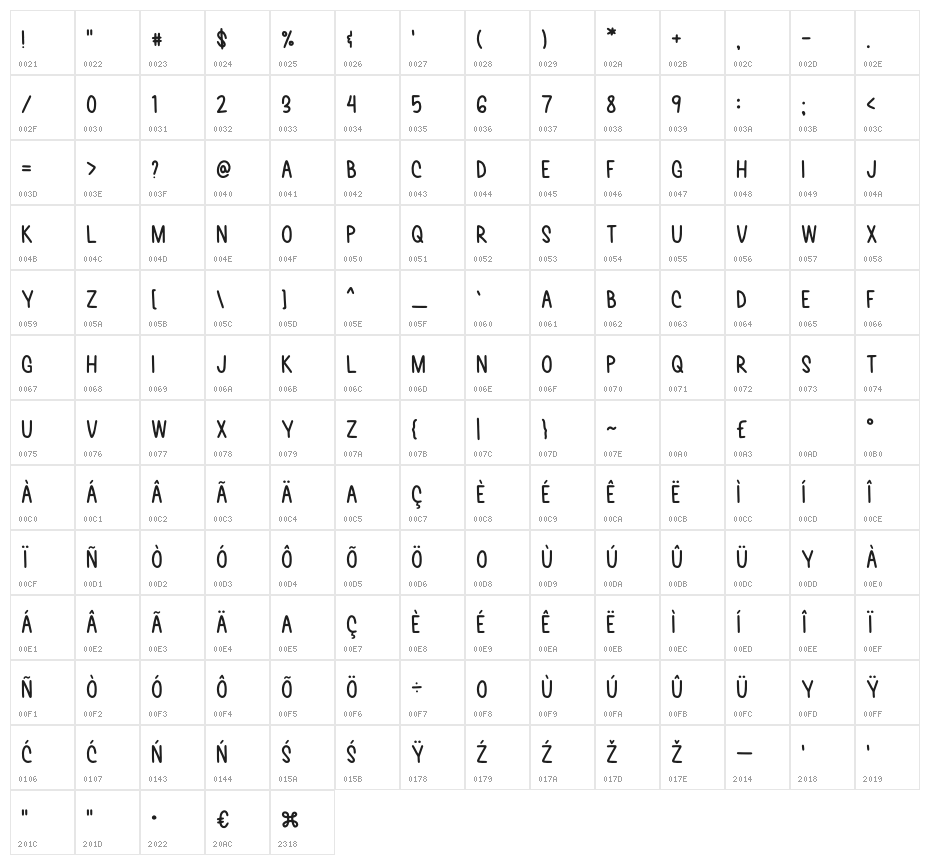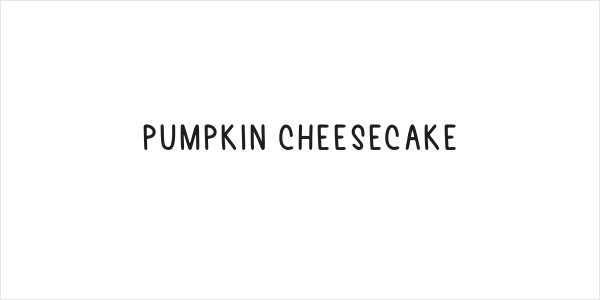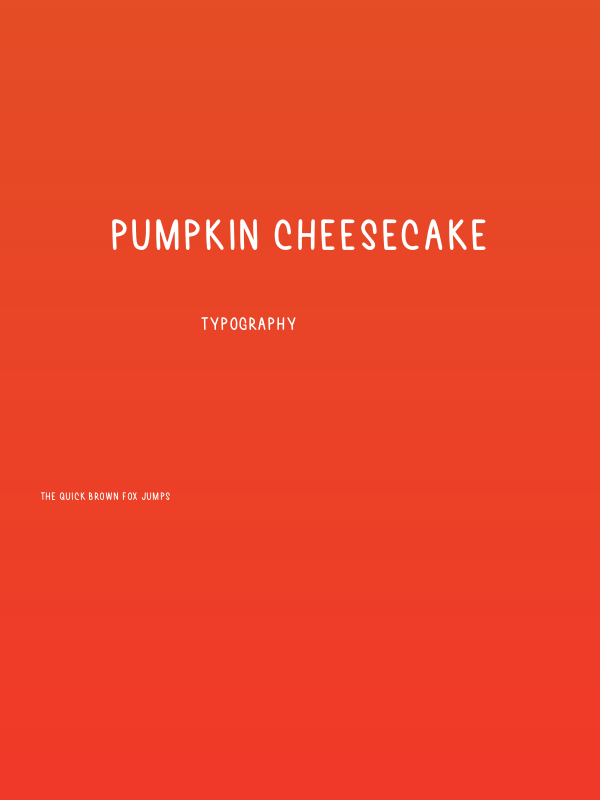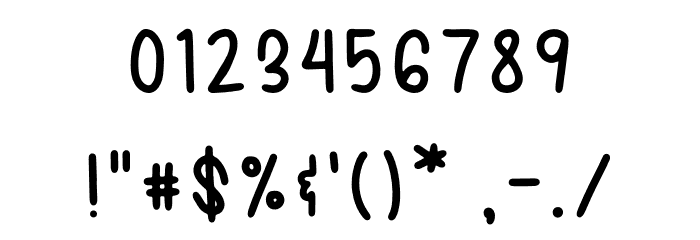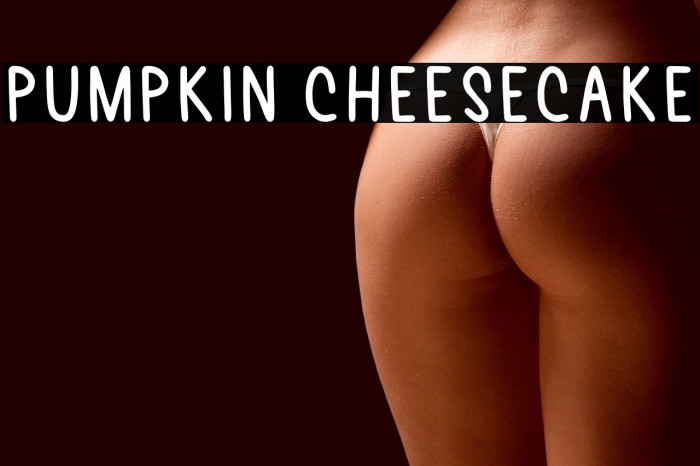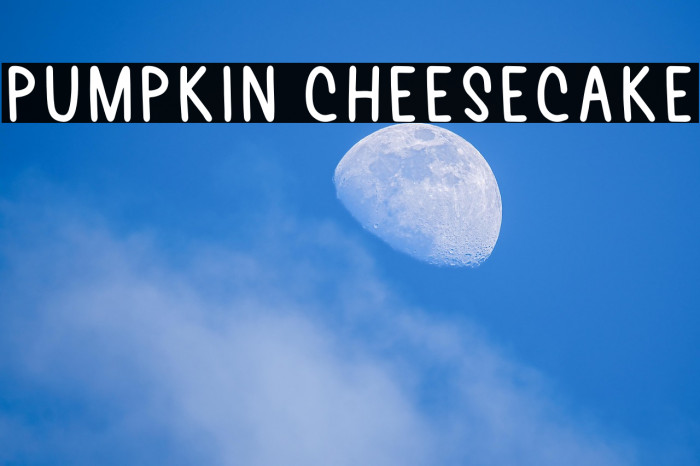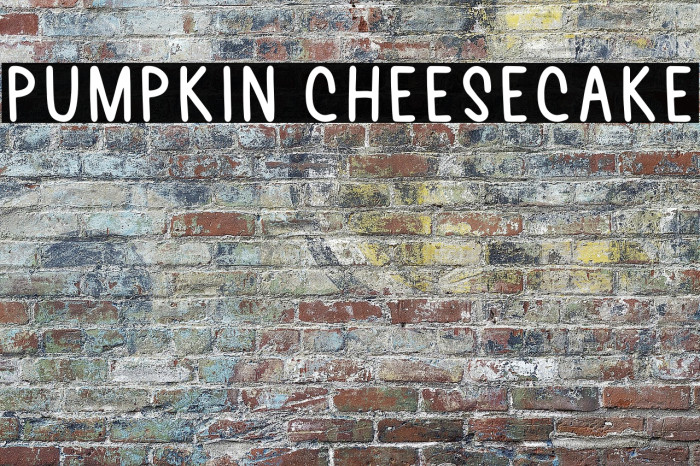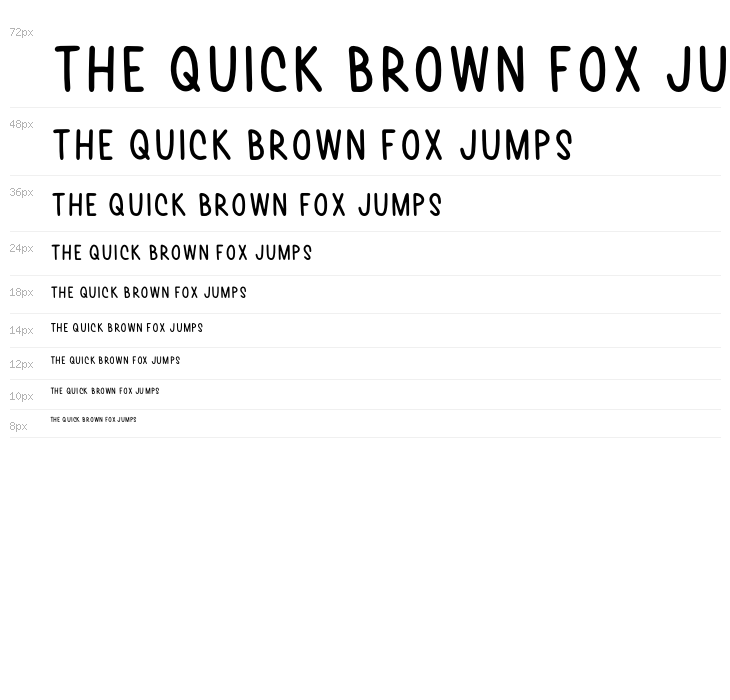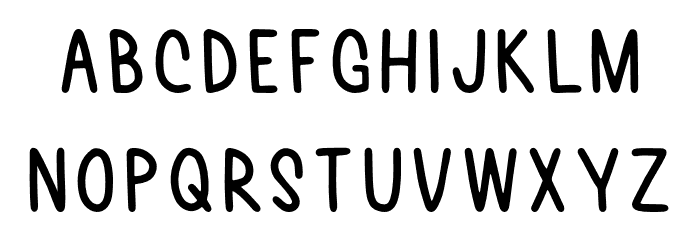
Pumpkin Cheesecake Font
Pumpkin Cheesecake Description
This playful and whimsical font features rounded, slightly irregular characters that convey a sense of fun and approachability. The letters are bold and have a hand-drawn appearance, making them ideal for casual and informal designs. The font maintains a consistent weight throughout, with a medium contrast between strokes. Its friendly and inviting style is perfect for projects that aim to capture a lighthearted and cheerful tone. The spacing between characters is normal, ensuring readability while maintaining its unique charm.
| Proposed Projects | Ideal for children's books, playful branding, greeting cards, and casual event invitations. |